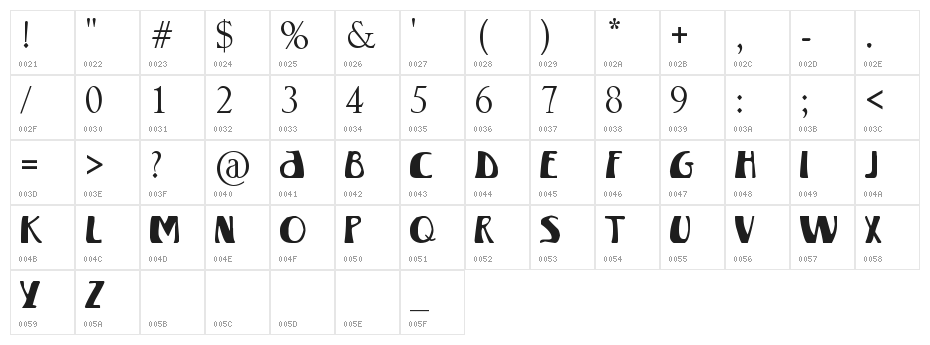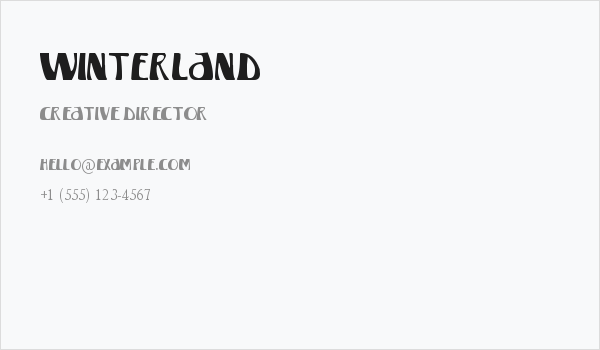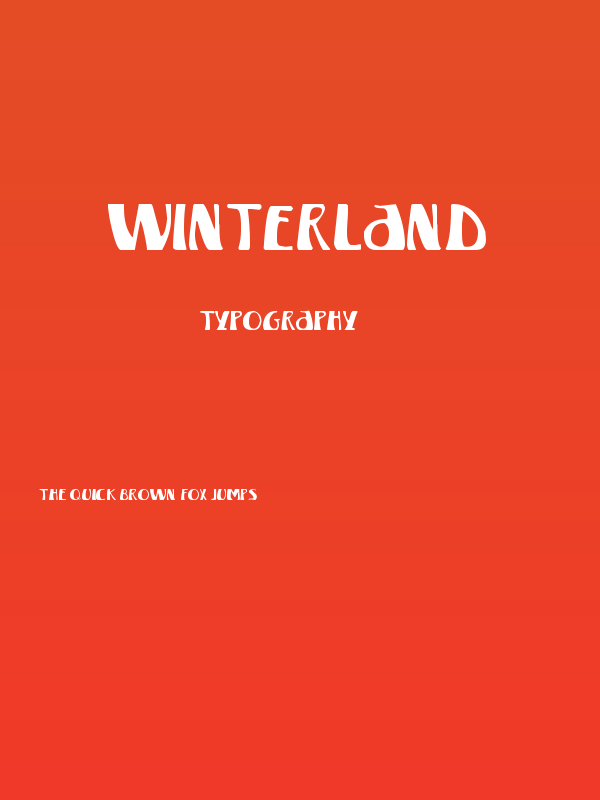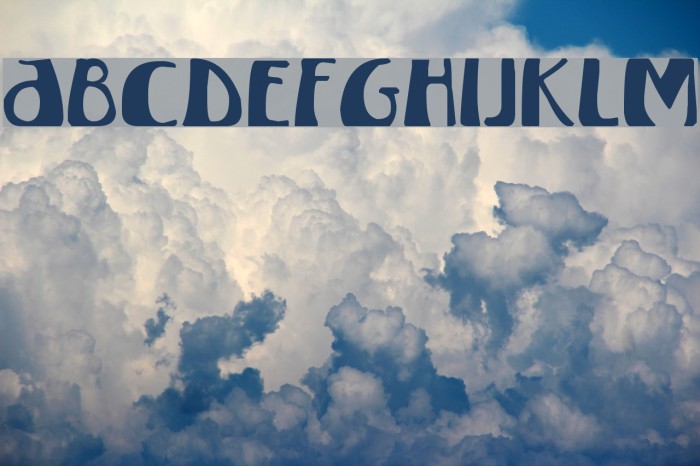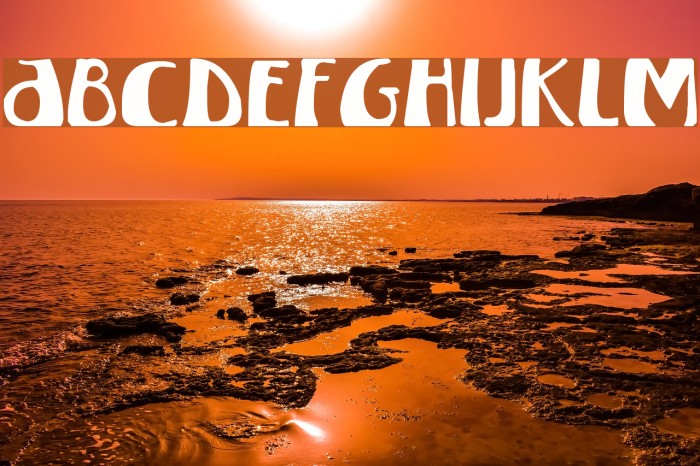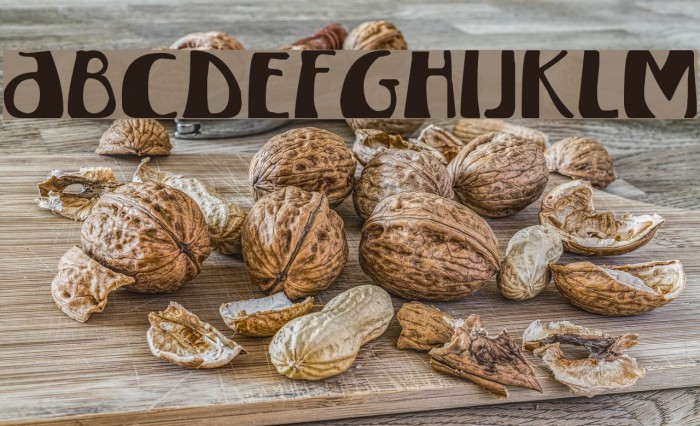
Winterland Font
Winterland Description
This font features a playful and whimsical design with a hand-drawn aesthetic. The characters have a unique, slightly irregular shape, giving them a lively and dynamic appearance. The uppercase letters are bold and prominent, while the lowercase letters maintain a consistent style with a touch of flair. The numbers are clear and easy to read, complementing the overall design. Special characters are creatively integrated, adding to the font's charm. This font is perfect for projects that require a fun and engaging look, such as children's books, playful branding, or festive invitations.
| Overall Style | Whimsical, Playful |
| Proposed Projects | Ideal for children's books, playful branding, festive invitations, and creative posters. |